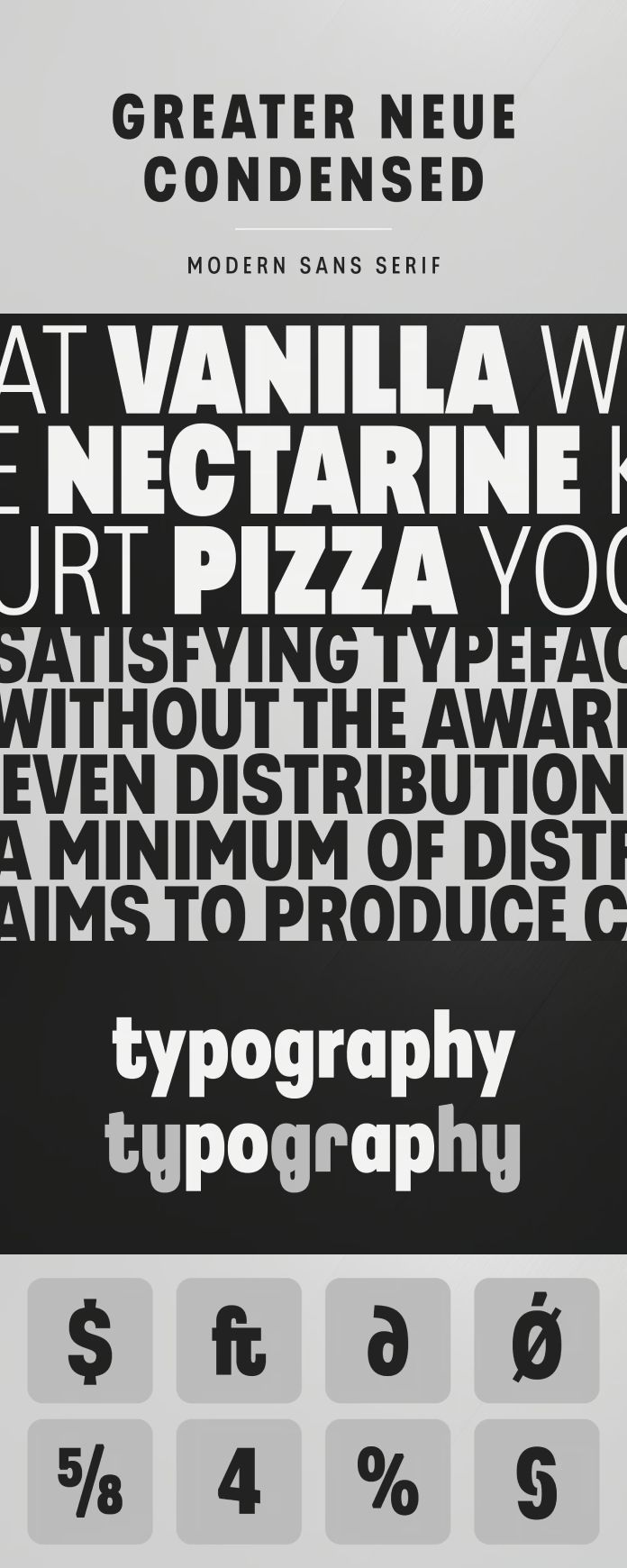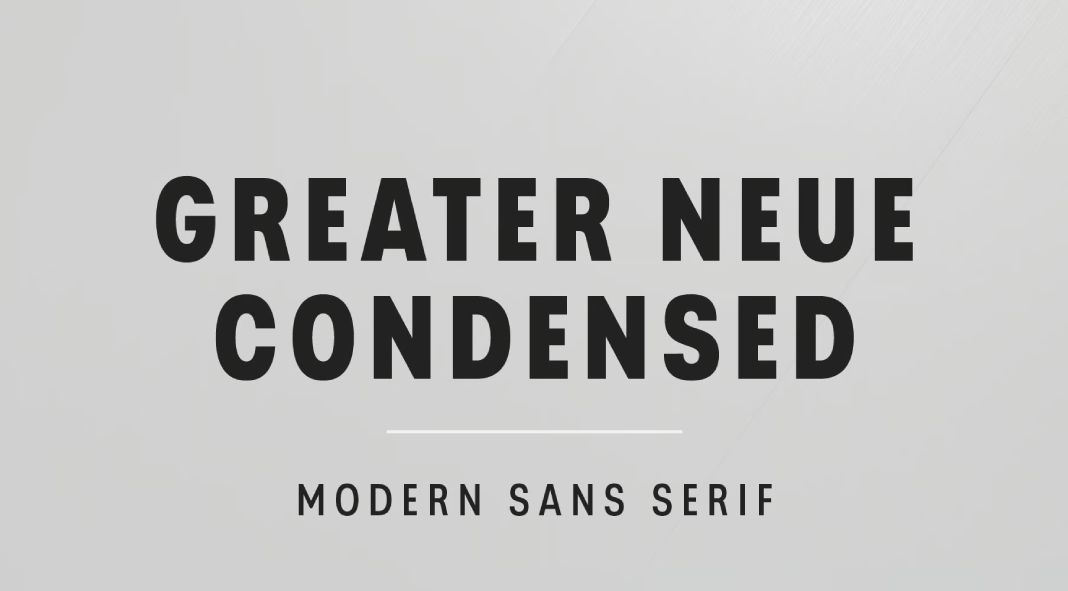
Exploring the Allure of Greater Neue Condensed: A Modern Typeface Marvel
In the dynamic world of typography, where every curve and stroke carries its own story, one font family stands out for its sleek sophistication and versatility: Greater Neue Condensed. Crafted by the visionary designer Nikolay Savchuk of NicolassFonts, this collection represents a pinnacle of contemporary type design, offering a seamless blend of elegance and functionality.
Greater Neue Condensed is not just a font; it’s a comprehensive ensemble comprising 32 styles, including 16 weights, uppercase glyphs, and corresponding italics. Its condensed width, coupled with a diverse range of weights, makes it a powerhouse for various design applications, from packaging and advertisements to headlines and corporate identities.
At the heart of Greater Neue Condensed’s appeal lies its ability to strike a delicate balance between form and function. Each letterform exudes a sense of refinement, with precise proportions and clean lines that command attention without overwhelming the viewer. Whether used in print or digital media, this font family lends a touch of contemporary elegance to any design project.
One of the standout features of Greater Neue Condensed is its versatility. Its condensed form factor makes it particularly well-suited for layouts where space is at a premium, allowing designers to convey information effectively without sacrificing aesthetics. Whether it’s creating impactful headlines or crafting eye-catching logos, this font family offers the flexibility to adapt to diverse design requirements with ease.
Moreover, Greater Neue Condensed excels in conveying a sense of modernity and sophistication. Its crisp letterforms and subtle geometric nuances evoke a feeling of professionalism and refinement, making it an ideal choice for brands looking to make a bold statement in today’s competitive market landscape.
From graphic design to display usage, Greater Neue Condensed shines in various contexts, showcasing its versatility and adaptability. Whether you’re designing a sleek packaging design for a luxury product or crafting a striking advertisement for a global brand, this font family provides the tools you need to elevate your creative endeavors to new heights.
In conclusion, Greater Neue Condensed stands as a testament to the ingenuity and craftsmanship of Nikolay Savchuk and NicolassFonts. With its impeccable design, comprehensive range of styles, and unmatched versatility, this font family continues to captivate designers and typographers alike, shaping the visual landscape of tomorrow with its timeless allure and contemporary flair.